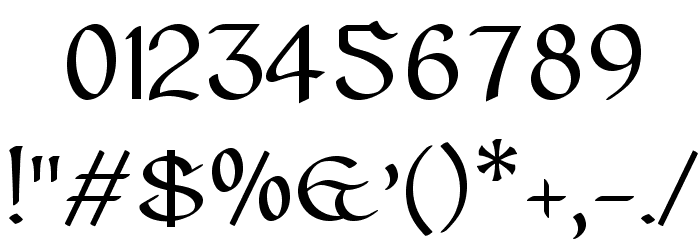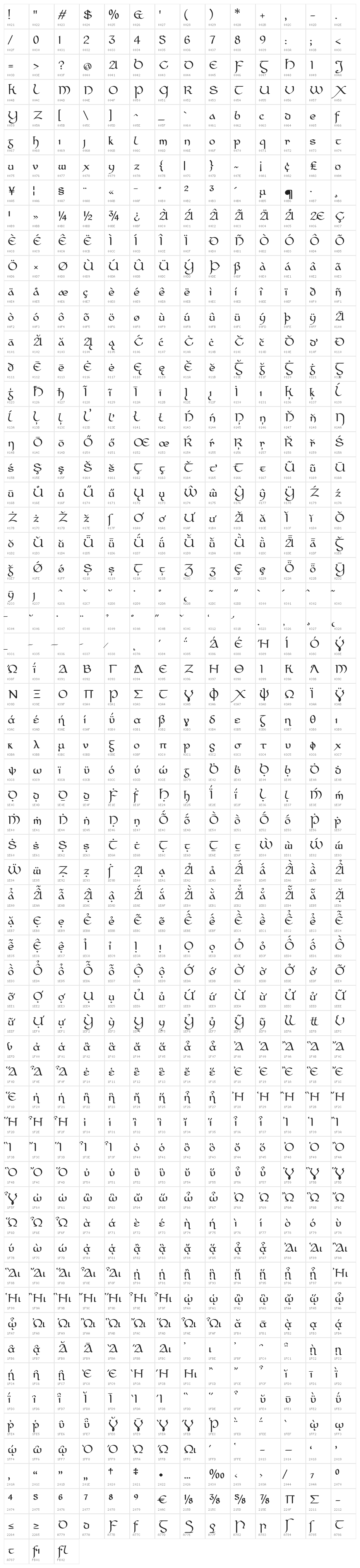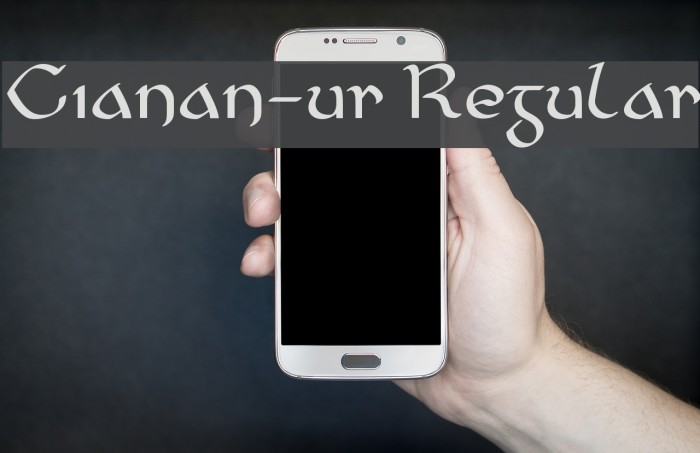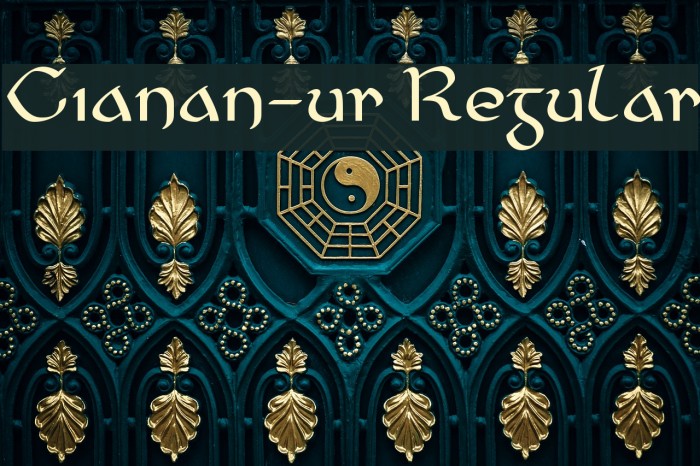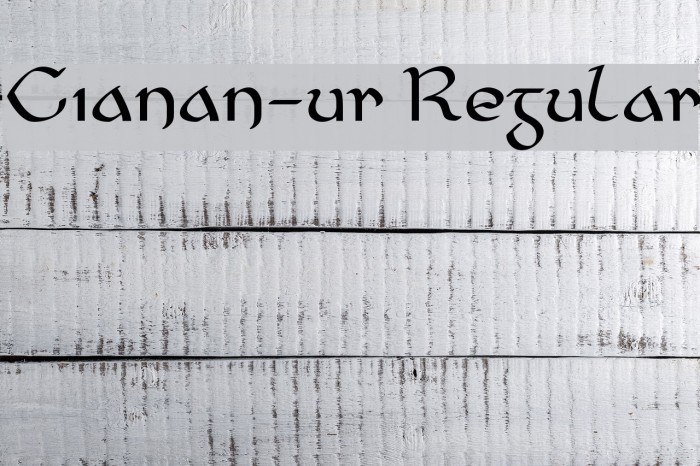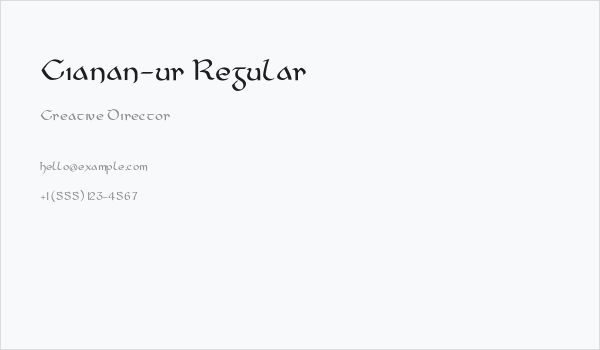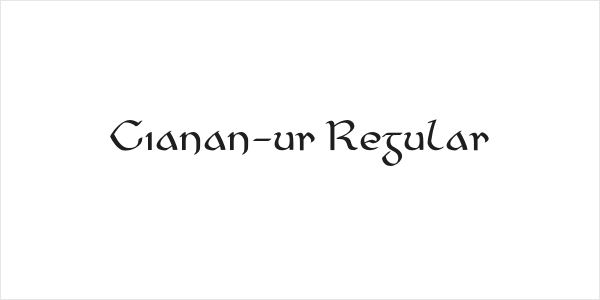
Cianan-ur Regular Font
Cianan-ur Regular Description
This font features a unique blend of medieval and modern design elements, characterized by its sharp, angular serifs and distinctively curved strokes. The uppercase letters exhibit a dramatic flair with elongated strokes, while the lowercase letters maintain a consistent style that complements the uppercase. The numerals are bold and easily distinguishable, adding to the font's versatility. Special characters are crafted with the same attention to detail, ensuring a cohesive look across all glyphs. The overall appearance is both elegant and bold, making it suitable for a variety of creative applications.
| Proposed Projects | Ideal for fantasy book covers, historical themed posters, and branding for luxury products. |